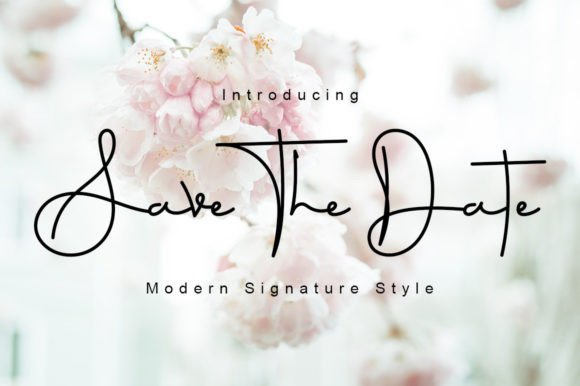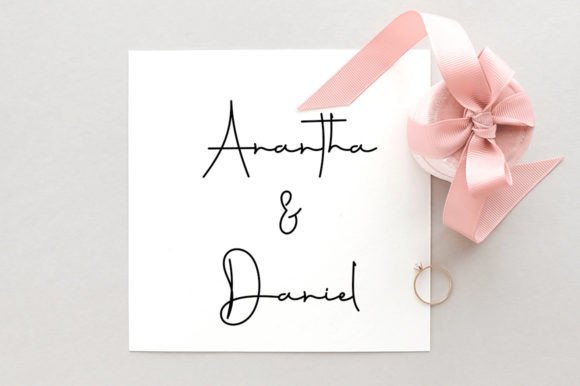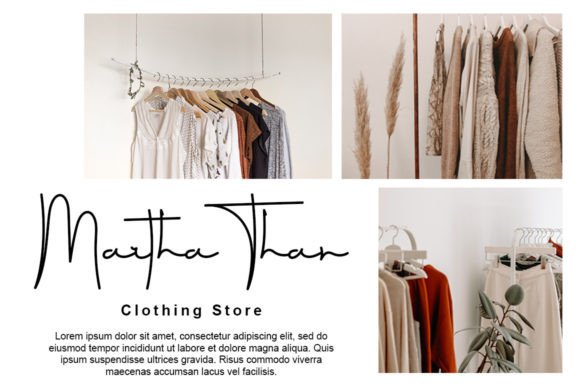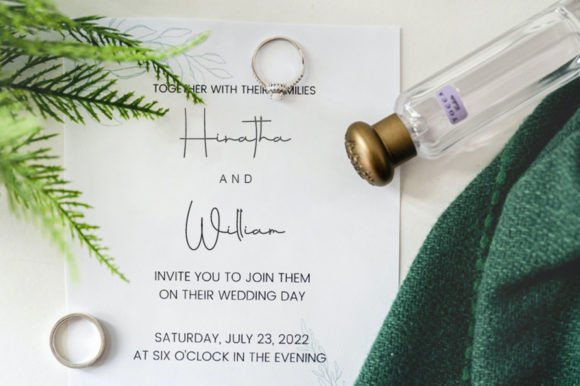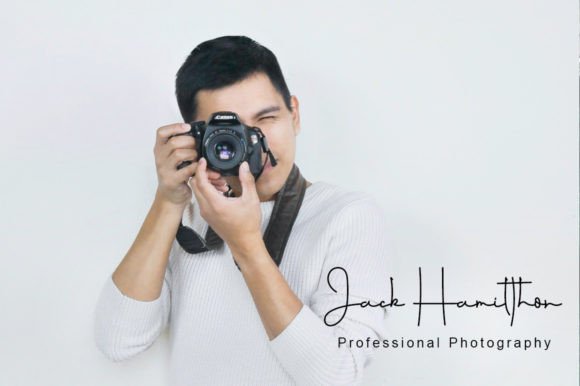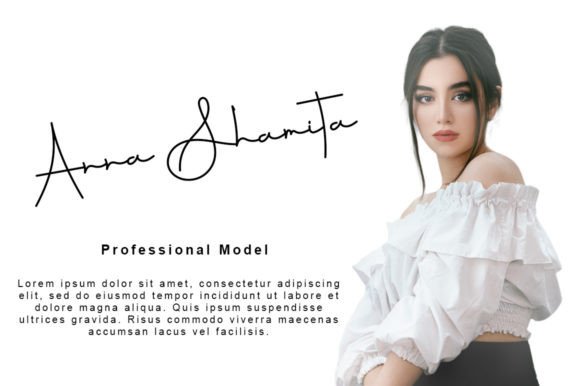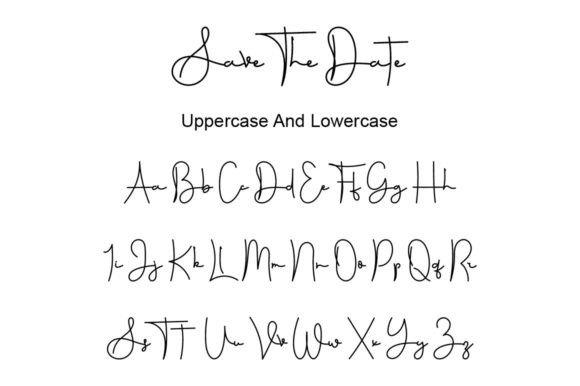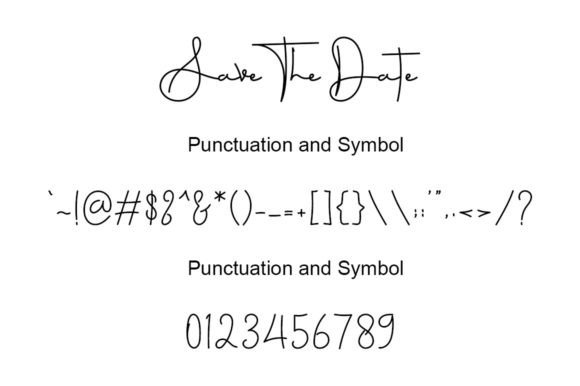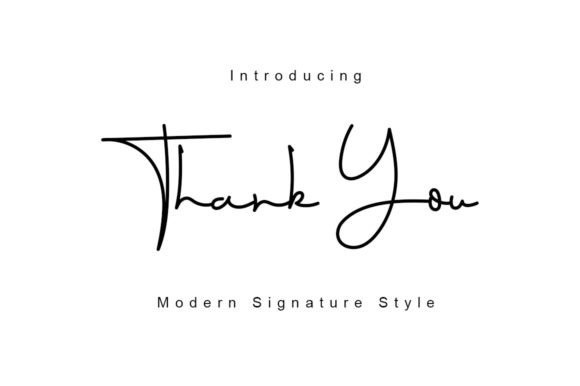
Save the Date Font
Save The Date is a dazzling script font that captivates with its elegant and detailed design. Meticulously crafted, this font is a refined addition to your font library, showcasing a level of detail and sophistication that can enhance a wide range of creative projects.
The font’s dazzling script style makes it versatile and suitable for various topics and themes. Whether you’re working on wedding invitations, event posters, branding, or any other creative endeavor, Save The Date has the potential to elevate your designs with its refined and detailed appearance.
The font’s craftsmanship is evident in its neat and highly detailed characters. This attention to detail contributes to the overall quality of the font, making it a reliable asset for creating visually stunning and polished designs. The intricate details add a touch of luxury and elegance, making Save The Date a standout choice for projects that demand a sophisticated aesthetic.
Save The Date is more than just a font; it’s a design tool that brings a level of finesse to your creations. Its ability to enhance any creation makes it a valuable asset for designers across various industries. From event materials to branding elements, Save The Date is designed to make a lasting impression with its dazzling and meticulously crafted script.
In summary, Save The Date is a font that goes beyond the ordinary, providing a level of detail and sophistication that can enhance the visual appeal of your designs. Let Save The Date be the font that adds a touch of elegance and refinement to your creations, making them stand out with dazzling flair.